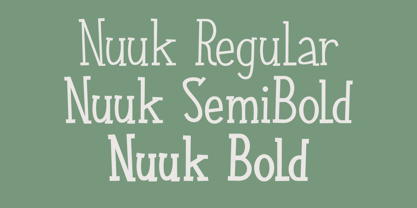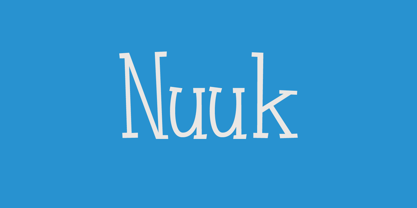
Nuuk
by Hanoded
About Hanoded
Hanoded is run by Dutchman David Kerkhoff. His fonts are a mishmash of styles, as he just creates whatever pops into his head. You will find a lot of brush fonts in his collection, as his favourite tools are brushes and Chinese ink, with cartoon style fonts and script fonts complementing his repertoire. Aside from making fonts, David occasionally guides tours in far-flung places, renovates his '30's house and tries reasoning with his wife and (teenage) kids. Not an easy task!